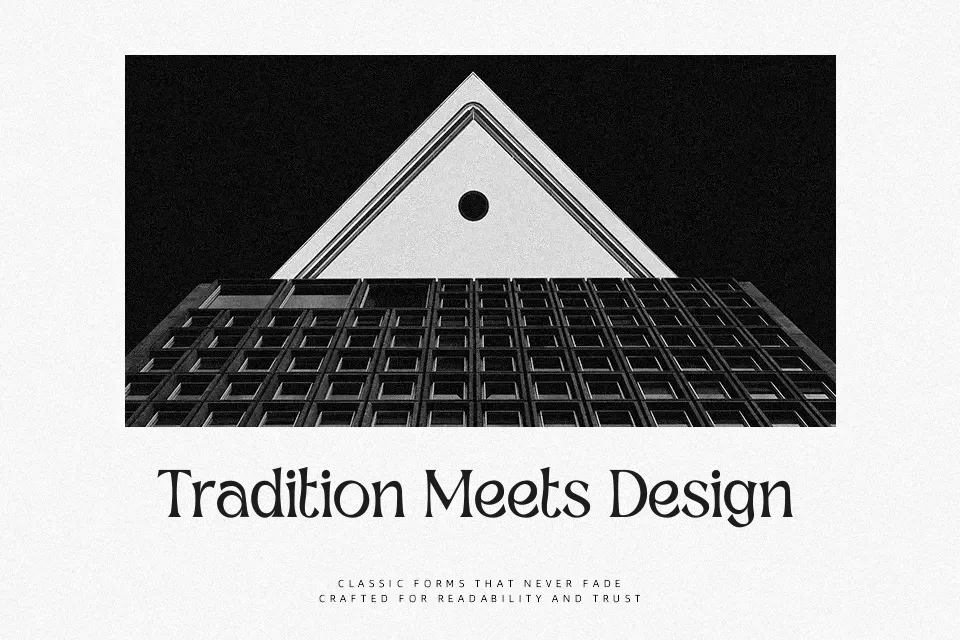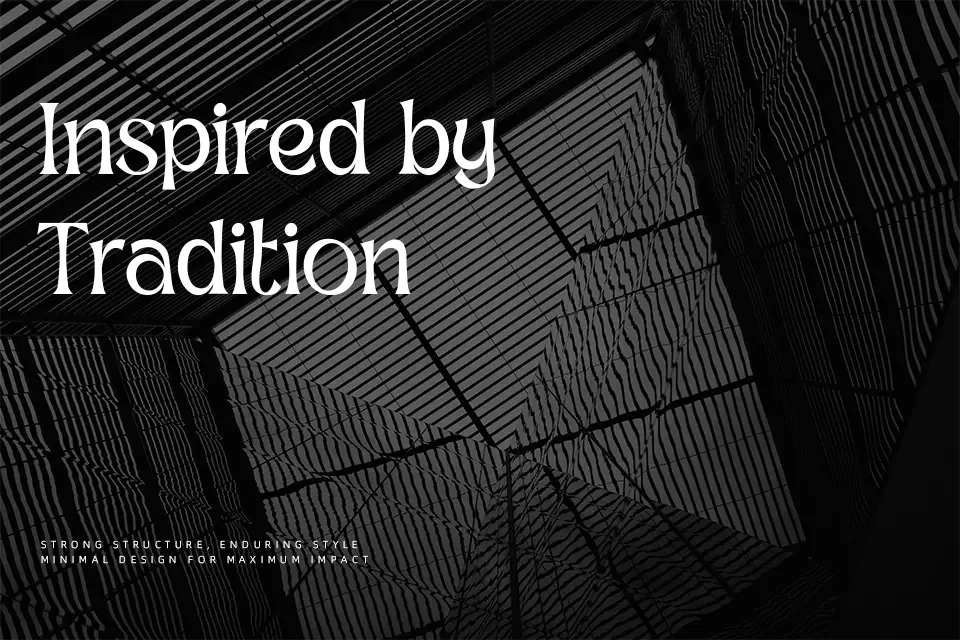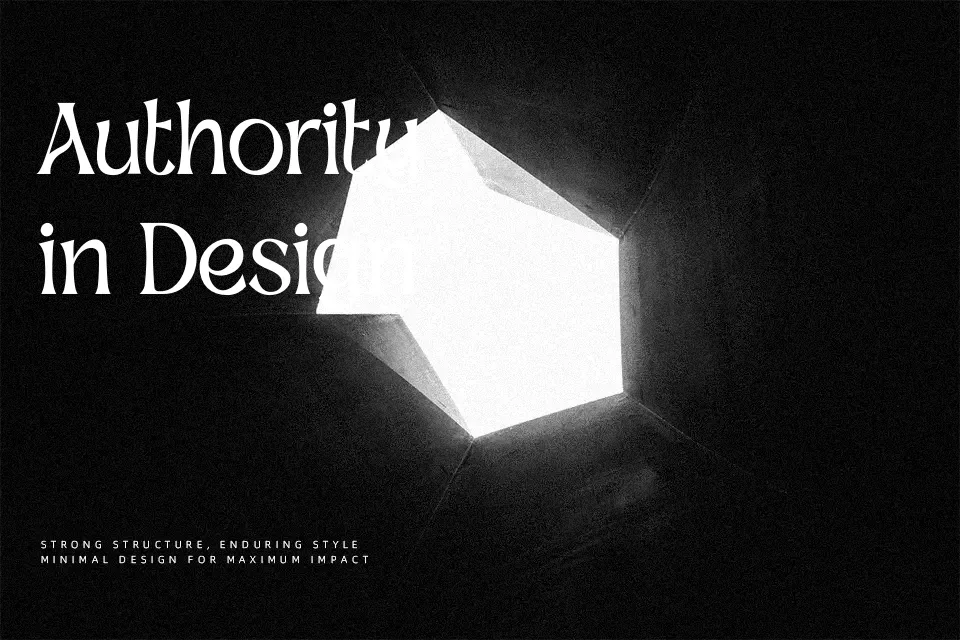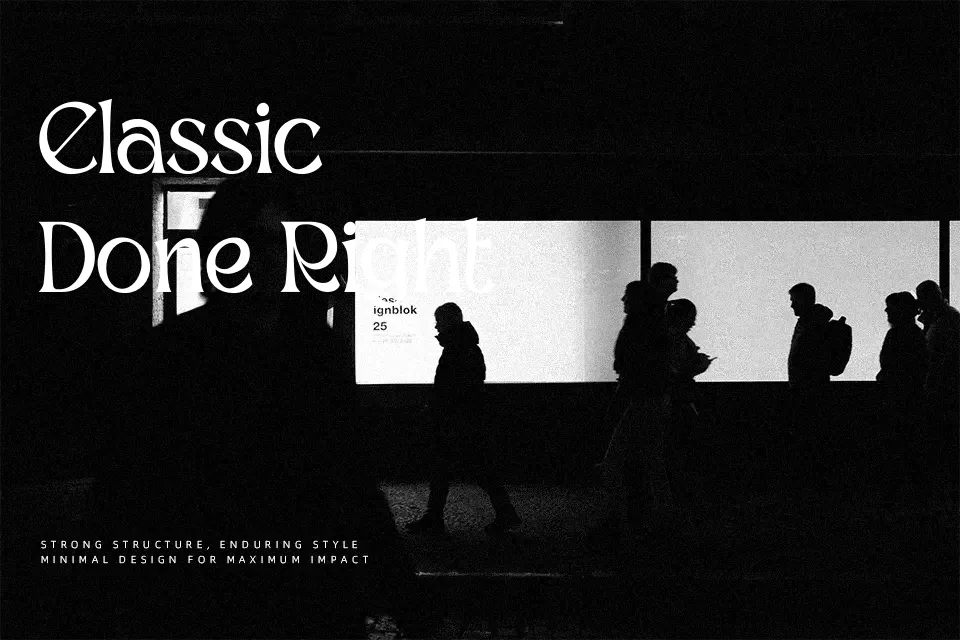
Reimbrandt Font
Designed by Ikiiko Type
Reimbrandt Font performs beautifully when utilized for prominent display purposes and elegant branding. The typeface features graceful serif structures and long, sinuous organic curves that create a highly stylized visual rhythm. Its balanced spacing and ornate letterforms ensure that headlines command attention, making it an excellent choice for vintage poster layouts, sophisticated cosmetic packaging, and fashion lookbooks. The refined strokes maintain strong visibility in large display text, providing a timeless aesthetic. However, the decorative details become less effective at smaller sizes. Because of its intricate nature, the design reduces comfort during extended reading and is less suitable for dense editorial paragraphs.
vintage product packaging
fashion lookbooks
cosmetic branding
festival posters
Perfect for fashion, headline, and packaging, with a classic and decorative style.